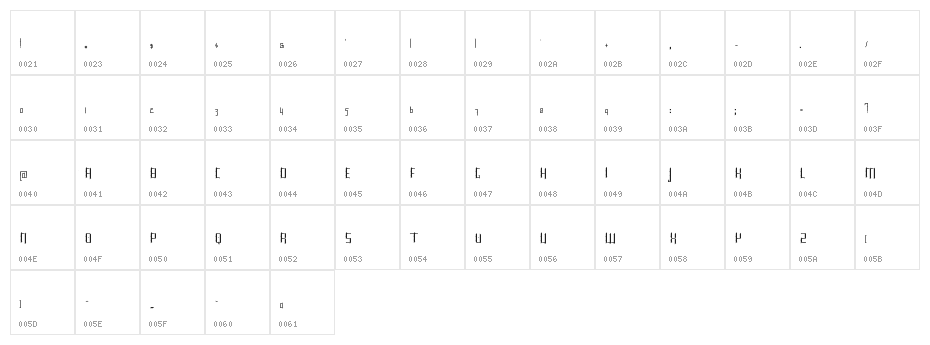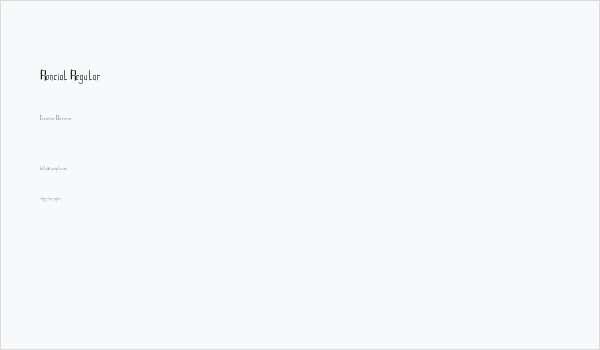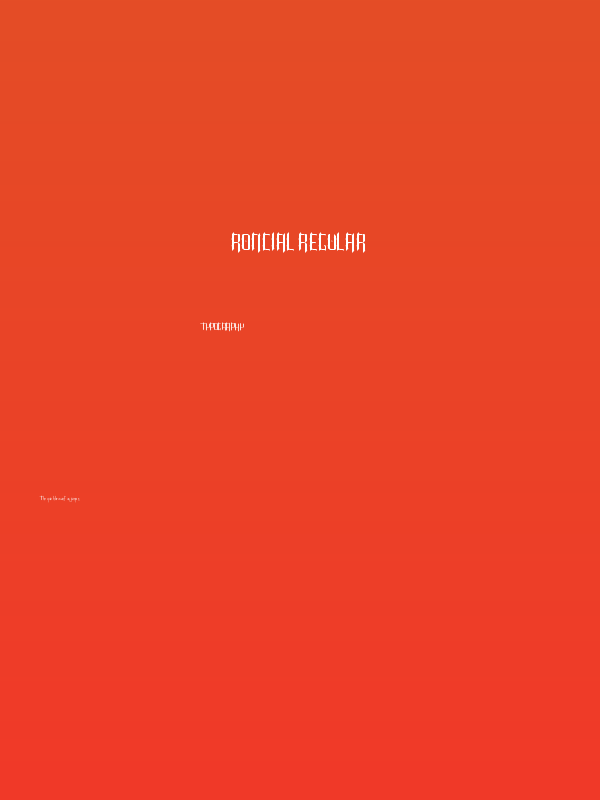
Roncial Regular Font
Roncial Regular Description
This font features a unique, geometric design with sharp angles and a modern aesthetic. The uppercase letters are tall and narrow, with distinctive cuts and lines that create a futuristic feel. The lowercase letters maintain the same angular style, offering a cohesive look across the typeface. Numbers and special characters are designed with the same attention to detail, ensuring consistency throughout. The overall appearance is striking and bold, making it suitable for projects that require a strong visual impact.
| Proposed Projects | Ideal for sci-fi themed designs, technology branding, and modern posters. |